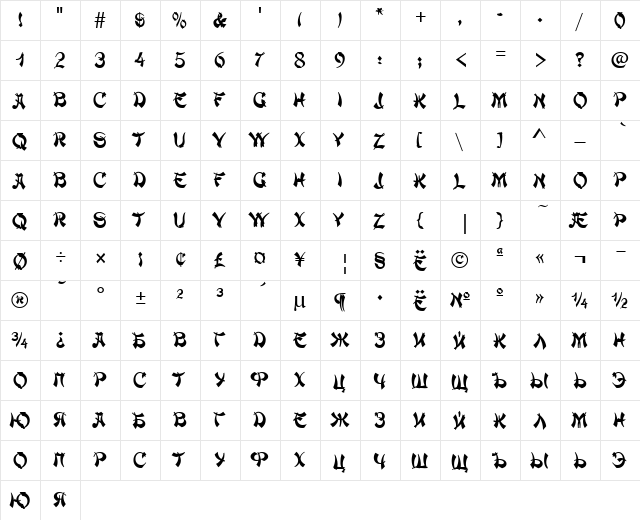
MandarinC Regular
Design Context for MandarinC Typeface
MandarinC is a composed and adaptable typeface that performs quietly and consistently across a wide range of design contexts.